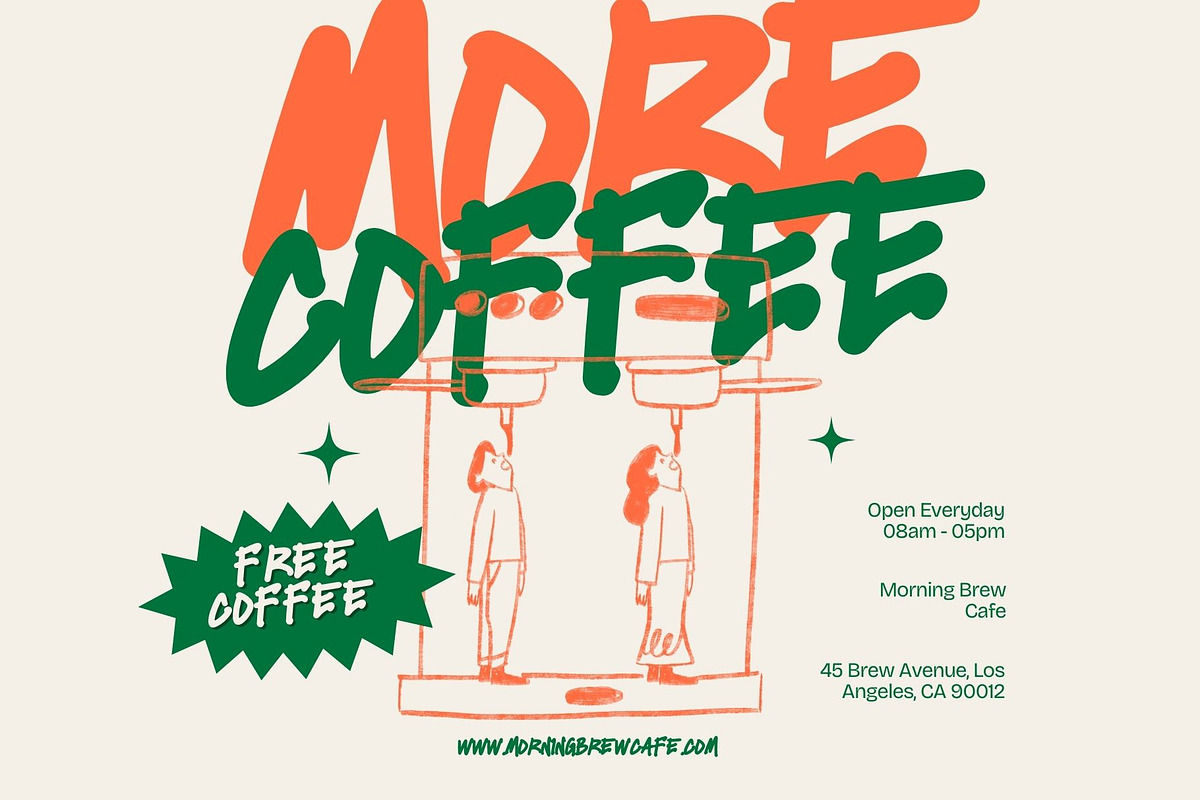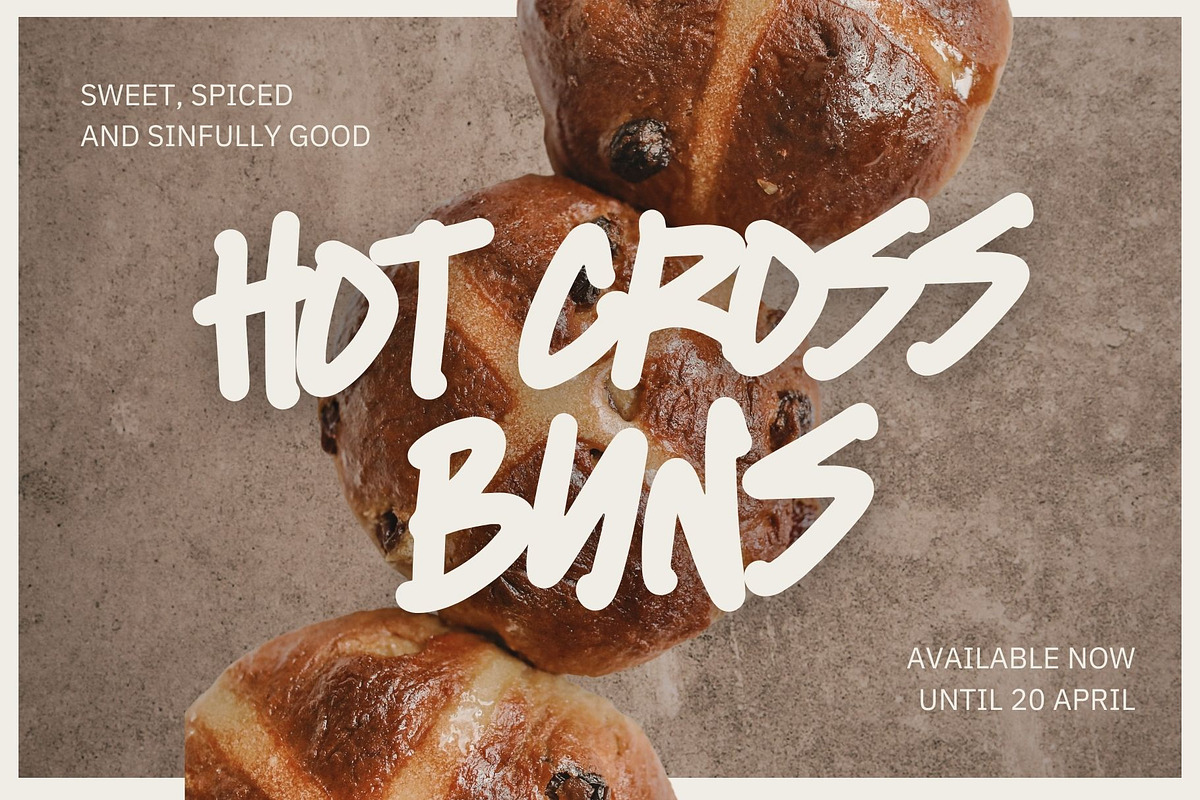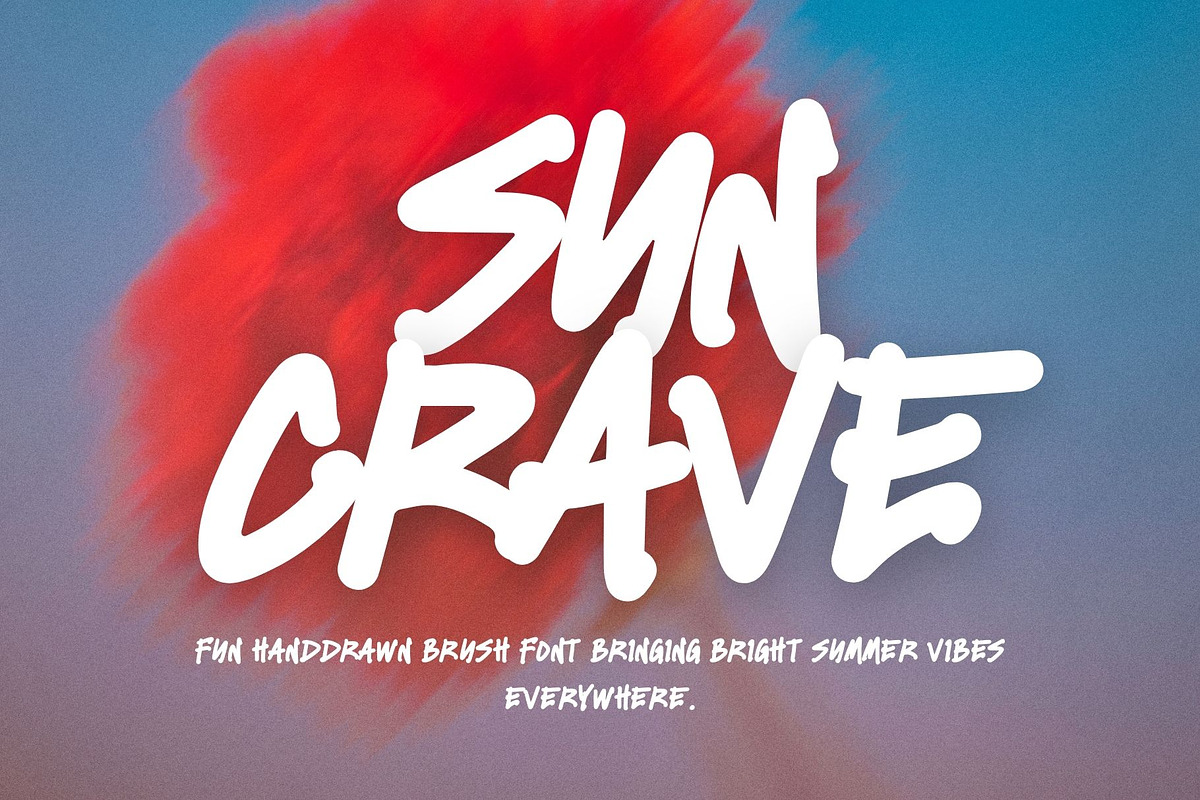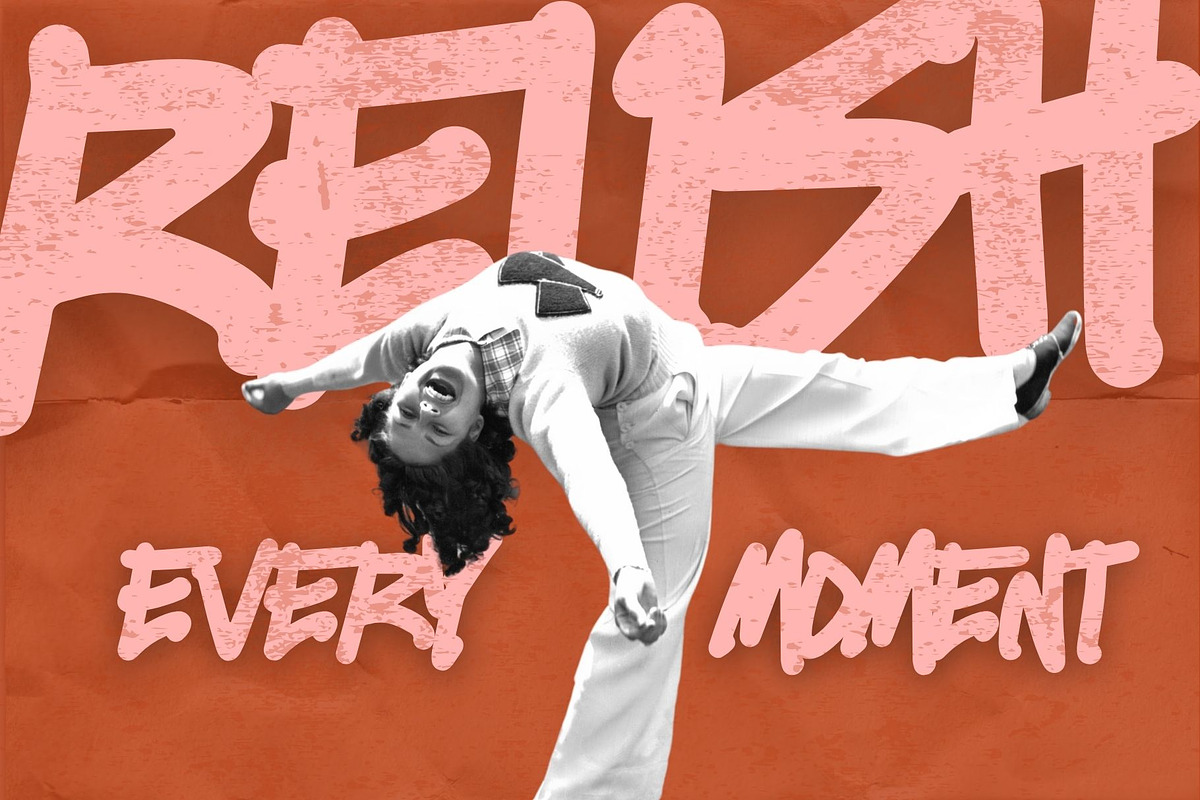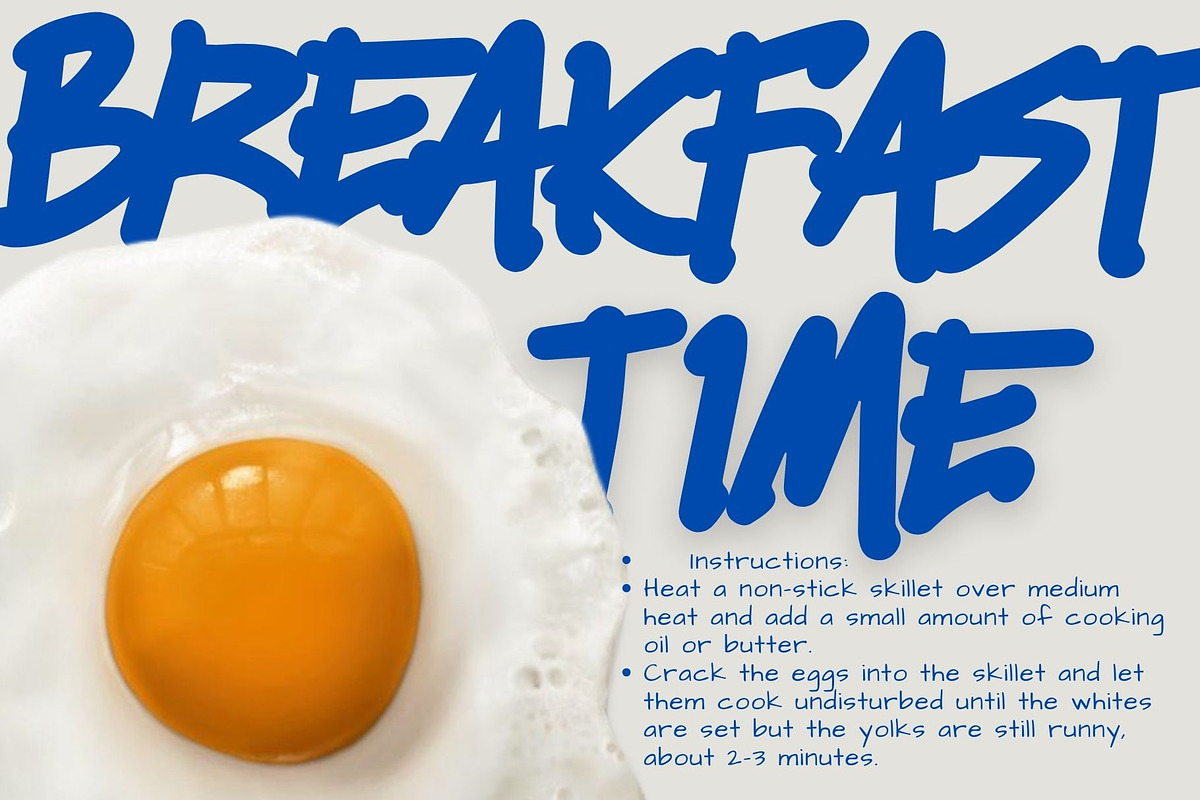
Suncrave
Suncrave is a bold and expressive handdrawn brush font inspired by urban graffiti strokes and playful monoline lettering. Designed with energetic brush movements and natural hand-drawn imperfections, this typeface brings a lively and modern personality to any design.
The strokes feel spontaneous and organic, creating a casual yet strong visual impact that instantly grabs attention. With its thick monoline brush style and slightly rough edges, Suncrave delivers an authentic handcrafted look that feels both fresh and artistic.
Perfect for headline typography, this font shines when used in large sizes where its expressive brush shapes can truly stand out. Whether you're designing creative posters, coffee shop branding, book titles, or film titles, Suncrave adds a bold and playful vibe that feels energetic and modern.
Suncrave is ideal for a wide range of creative projects such as:
• Poster headlines • Cafe and restaurant branding • Book titles and covers • Movie and film titles • Music artwork • Street style graphics • Social media designs • Merchandise and apparel • Packaging design • Modern branding projects
Bring a vibrant, artistic, and street-inspired energy to your designs with Suncrave, a brush font made to stand out.